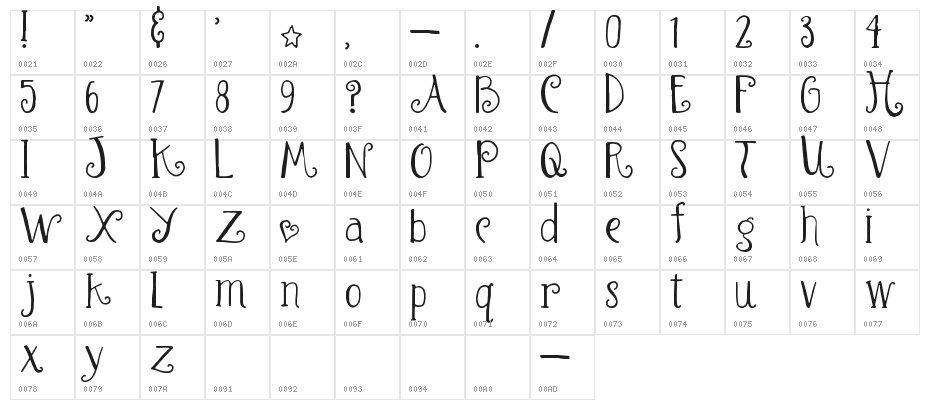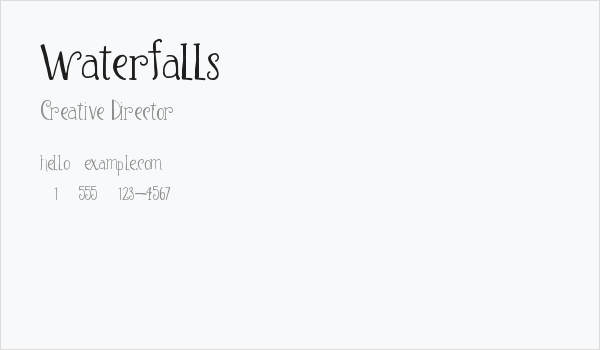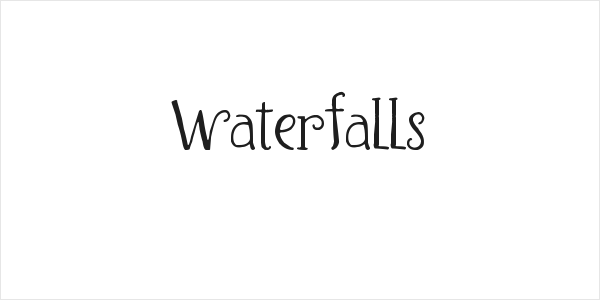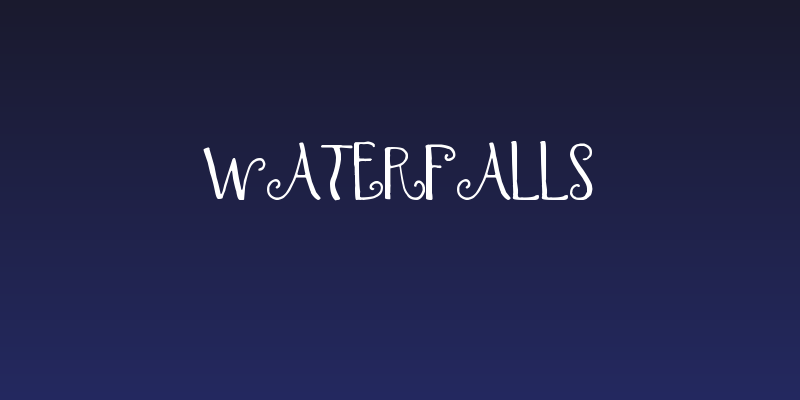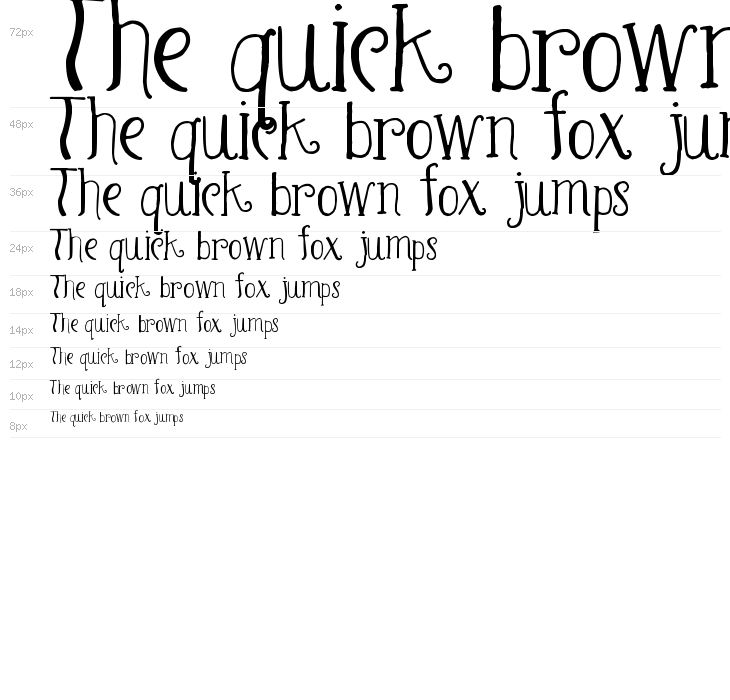
Waterfalls Font
Waterfalls Description
This whimsical and playful font features a unique blend of curly and straight lines, giving it a lively and artistic appearance. The uppercase letters are characterized by their decorative swirls, particularly noticeable on letters like 'A', 'B', and 'R'. The lowercase letters maintain a consistent style, with some characters like 'g' and 'y' having distinctive loops. Numbers are bold and slightly exaggerated, adding to the font's overall charm. Special characters, such as the ampersand and exclamation mark, are designed with flair, enhancing the font's creative appeal.
| Overall Style | Playful, Artistic |
| Use Case | Headlines, Logos, Creative projects |
| Proposed Projects | Ideal for children's book covers, playful branding, greeting cards, and creative posters. |